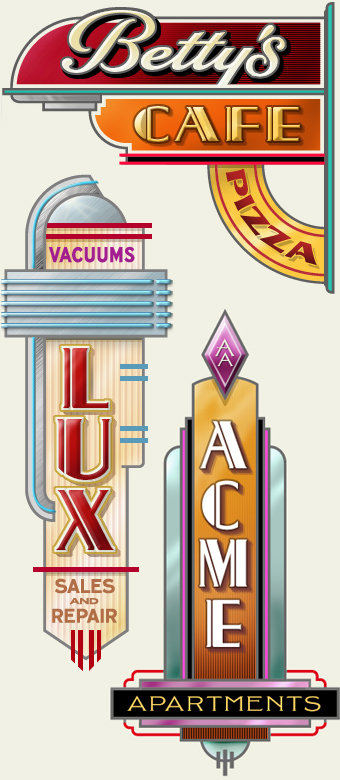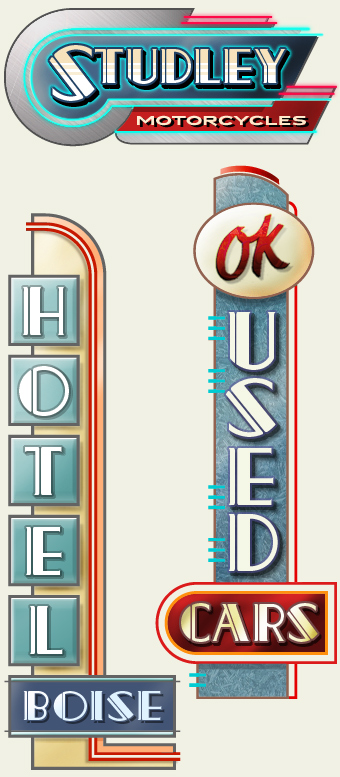
LHF 20 Six Letters
Noel Weber
John Davis
Noel Weber's deco typeface is perfect for adding a retro flair to any design. Pair it with
20 Six Panels
for a quick and unique Art Deco design.